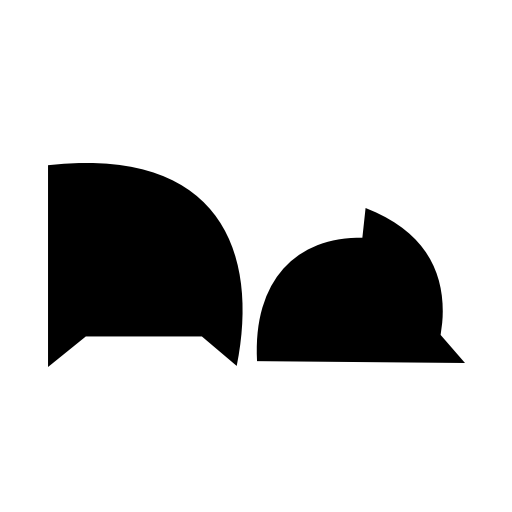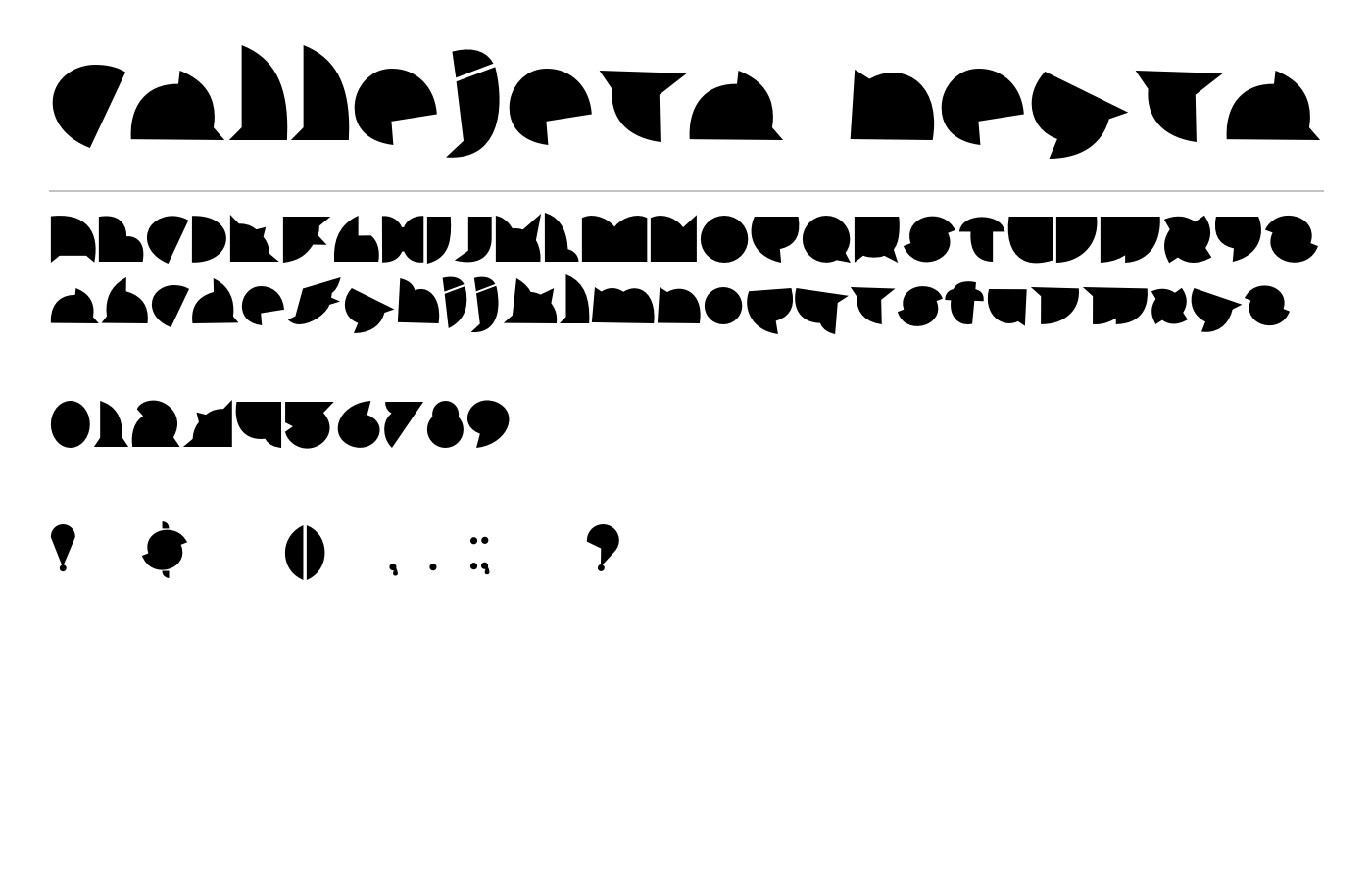
Callejera Negra is a bold, geometric display font with a strikingly abstract and modern design. Its heavy, solid shapes and unique, fragmented letterforms give it an avant-garde, artistic vibe perfect for attention-grabbing headlines, logos, and creative branding projects that seek to convey individuality and urban edge. This font works best in large sizes where its unconventional style can stand out and make a strong visual impact.
callejera negra Font
| Designer | Sergio Catalan A. |